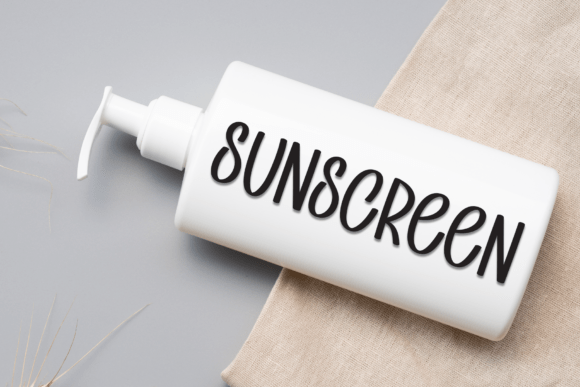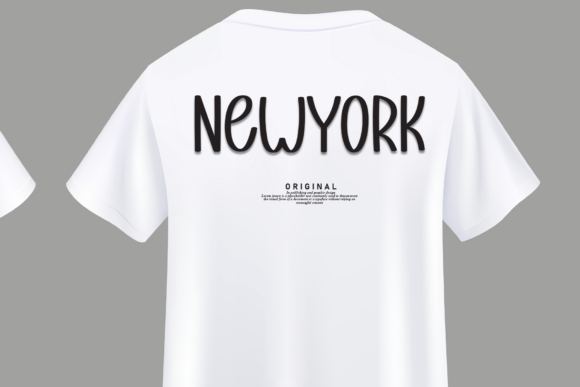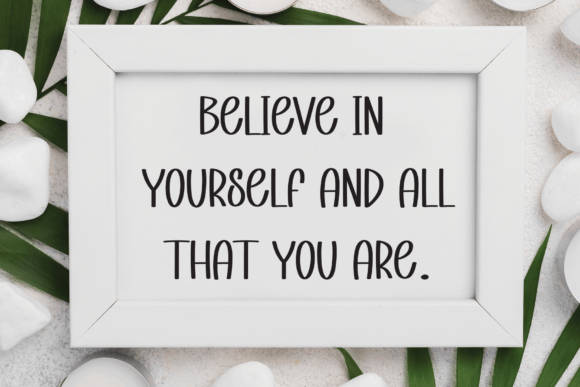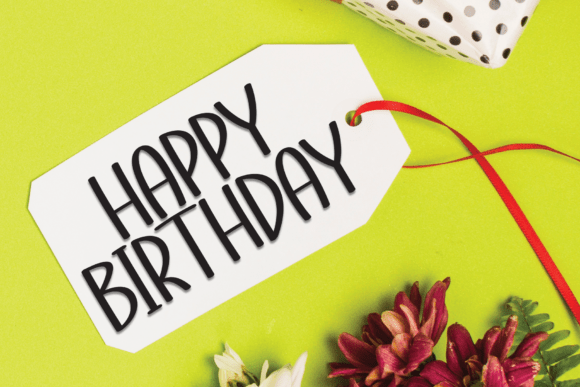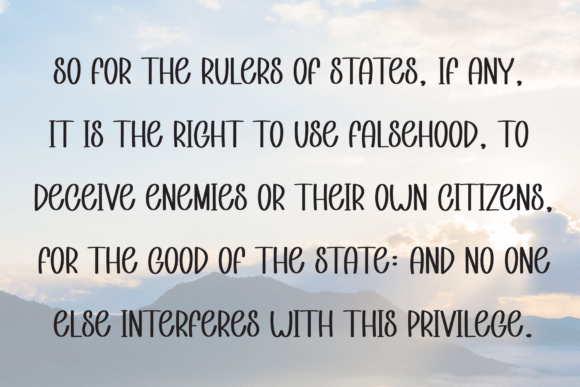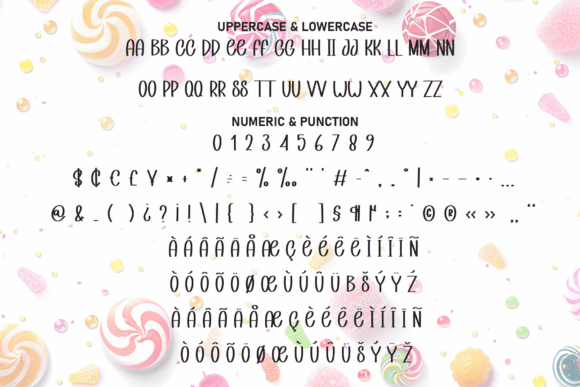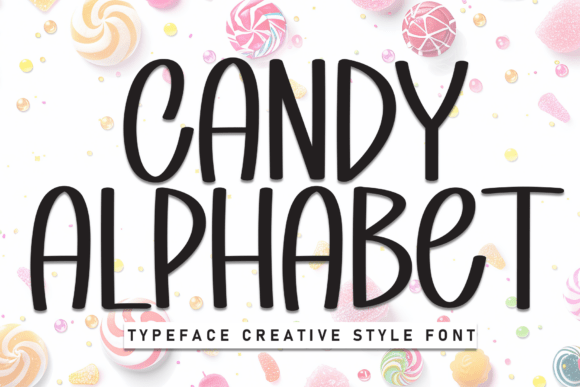
Candy Alphabet Font: Adding a Sweet Touch to Your Designs
Are you looking for a typeface that can bring a dash of fun and whimsy to your designs? Look no further than the Candy Alphabet Font! This creative and joyful font is perfect for designers and crafters who want to add a sweet touch to their work. In this article, we’ll explore the features and benefits of the Candy Alphabet Font and how it can be used to make your designs stand out.
What is Candy Alphabet Font?
Candy Alphabet Font is a unique and playful typeface that is designed to bring a sense of joy and sweetness to your designs. Its tall, narrow characters and whimsical handwritten touch make it perfect for a variety of design applications, from packaging and kids’ content to logos and holiday themes.
Key Features of Candy Alphabet Font
- Tall and Narrow Characters: The Candy Alphabet Font features tall and narrow characters that are perfect for creating eye-catching headlines and titles.
- Whimsical Handwritten Touch: The font has a playful and whimsical feel, making it perfect for designs that require a touch of personality and fun.
- Perfect for Kids’ Content: The font’s playful and colorful feel makes it ideal for kids’ content, such as children’s books, educational materials, and games.
- Suitable for Packaging: The font’s bold and eye-catching design makes it perfect for packaging, especially for sweet treats and candies.
- Great for Holiday Themes: The font’s festive and playful feel makes it ideal for holiday-themed designs, such as Christmas, Halloween, and Easter.
Benefits of Using Candy Alphabet Font
So, why should you use the Candy Alphabet Font in your designs? Here are just a few benefits:
- Adds a Touch of Whimsy: The font’s playful and whimsical feel adds a touch of personality to your designs, making them more engaging and fun.
- Perfect for Branding: The font’s unique and eye-catching design makes it perfect for branding and logo design, helping you to stand out from the competition.
- Easy to Read: Despite its playful feel, the font is easy to read, making it perfect for body text and headlines.
- Versatile: The font can be used in a variety of design applications, from digital designs to print materials.
How to Use Candy Alphabet Font in Your Designs
Using the Candy Alphabet Font in your designs is easy! Here are a few tips:
- Pair it with Other Fonts: Pair the Candy Alphabet Font with other fonts to create a unique and eye-catching design.
- Use it for Headlines: Use the font for headlines and titles to add a touch of whimsy and personality to your designs.
- Add Color: Add color to your designs to make them more vibrant and playful.
- Experiment with Different Sizes: Experiment with different font sizes to create visual interest and hierarchy in your designs.
In conclusion, the Candy Alphabet Font is a fun and playful typeface that can add a sweet touch to your designs. With its tall, narrow characters and whimsical handwritten touch, it’s perfect for a variety of design applications, from packaging and kids’ content to logos and holiday themes. Whether you’re a designer or crafter, this font is sure to bring joy and personality to your work.